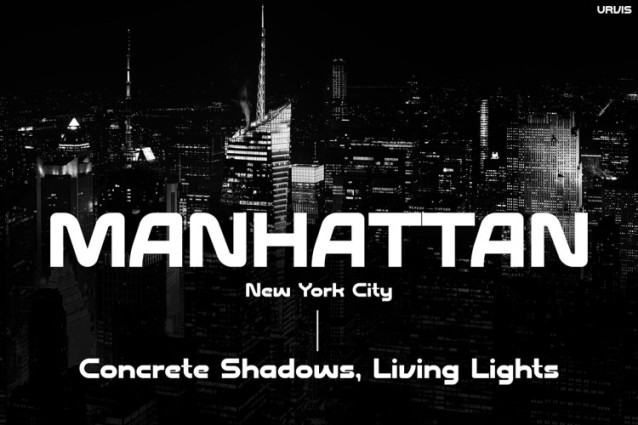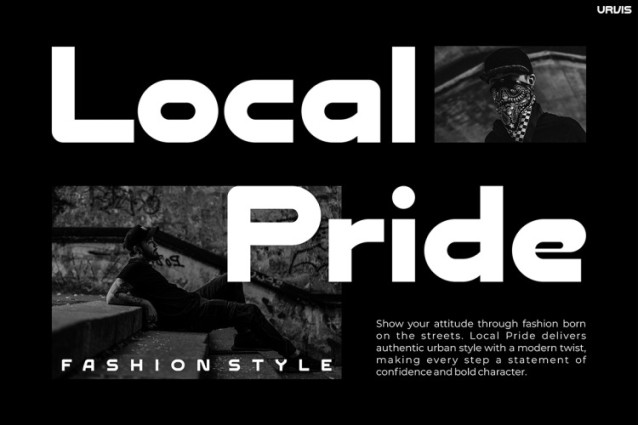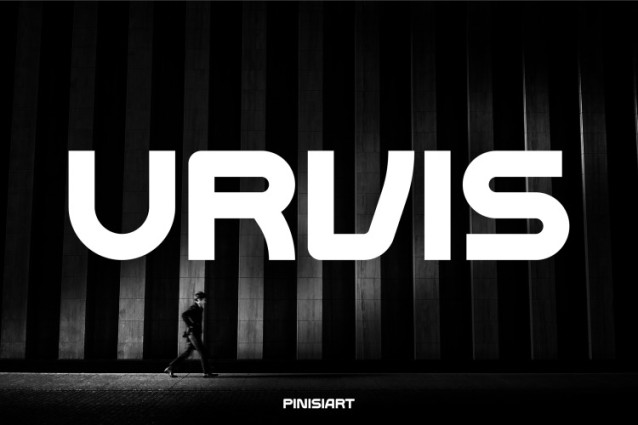
Urvis Font
Urvis Font is a bold urban-inspired typeface with strong geometric forms and smooth curves. Its design combines sharp professionalism with creative flair. Moreover, the clean uppercase, sleek lowercase, and impactful numbers make it highly versatile for a wide range of design projects.
This font captures the pulse of modern city life. Concrete, lights, and movement are reflected in its structure. However, despite its bold character, Urvis remains clear and readable in both small and large sizes. Therefore, it works well for stylish branding, digital campaigns, and everyday marketing materials.
In addition, the font’s sharp edges and smooth balance create an aesthetic that is both powerful and minimal. This unique blend allows designers to create strong statements without losing visual harmony. It brings a professional feel, yet still connects with creative energy.